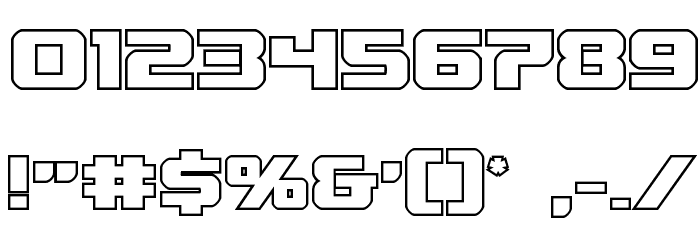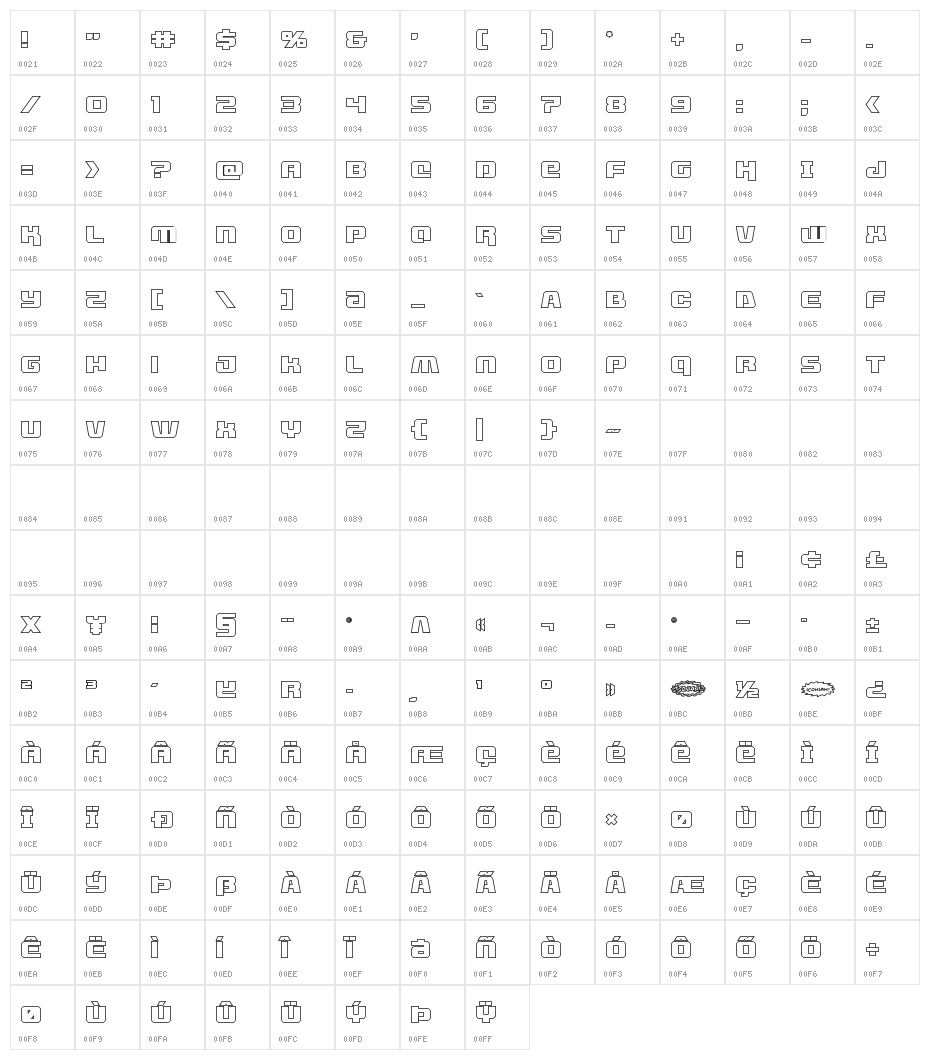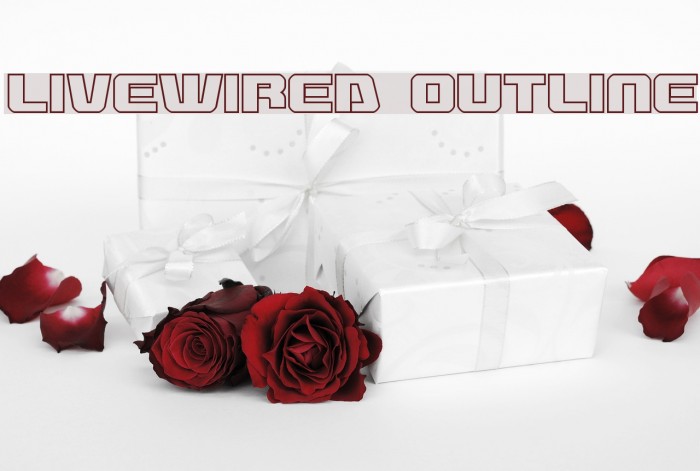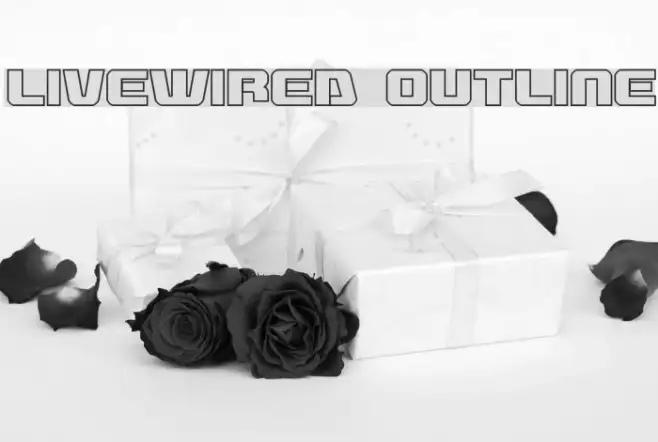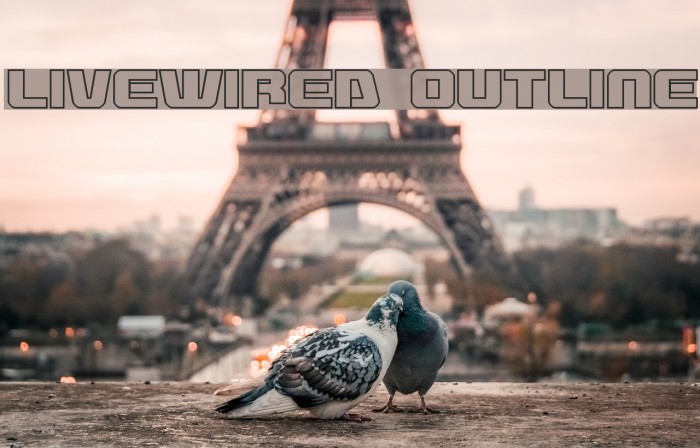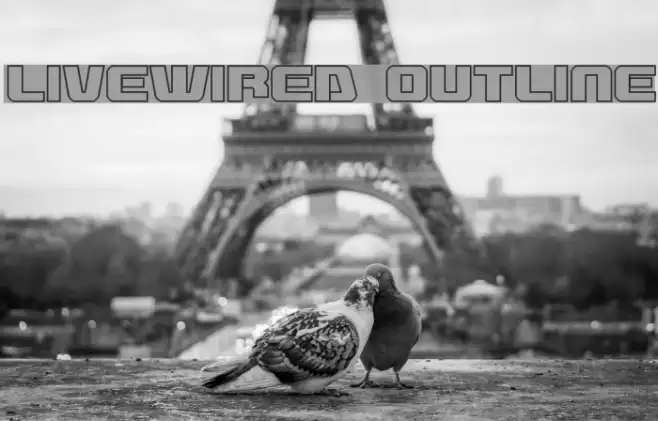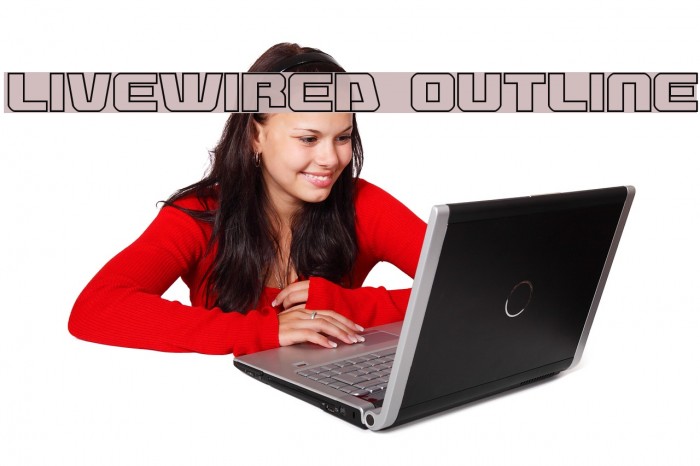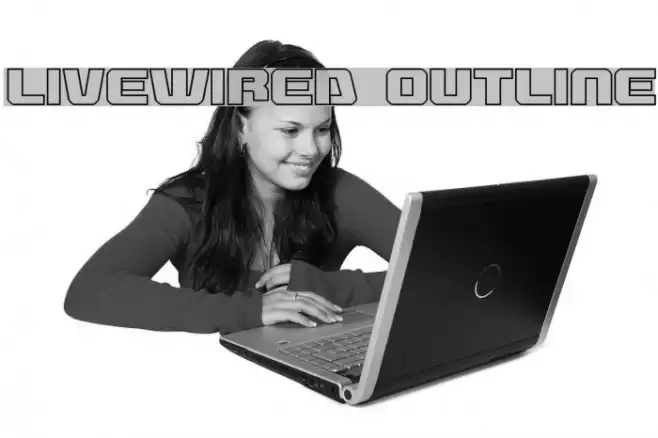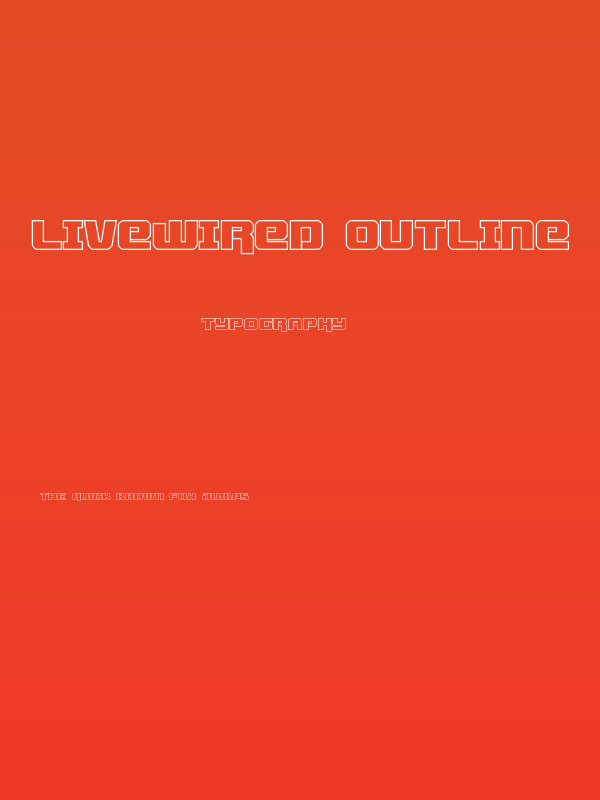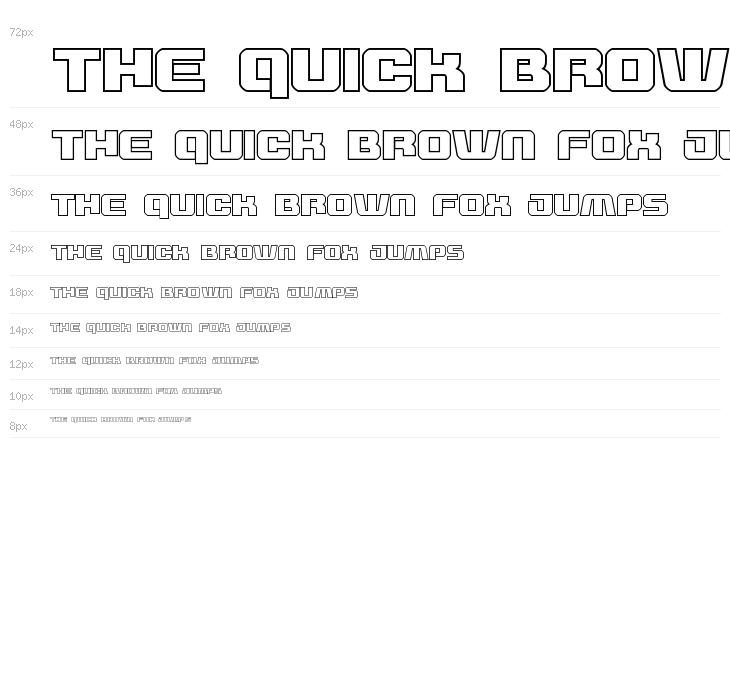
Livewired Outline Font
Livewired Outline Description
This font features a bold, geometric outline style that emphasizes a futuristic and digital aesthetic. The characters are constructed with clean, straight lines and sharp angles, creating a sense of precision and modernity. The uppercase and lowercase letters maintain a consistent height, contributing to a uniform appearance. The numbers and special characters are designed to match the overall style, ensuring visual coherence across all elements. This font's outline nature makes it ideal for applications where a striking, high-tech look is desired.